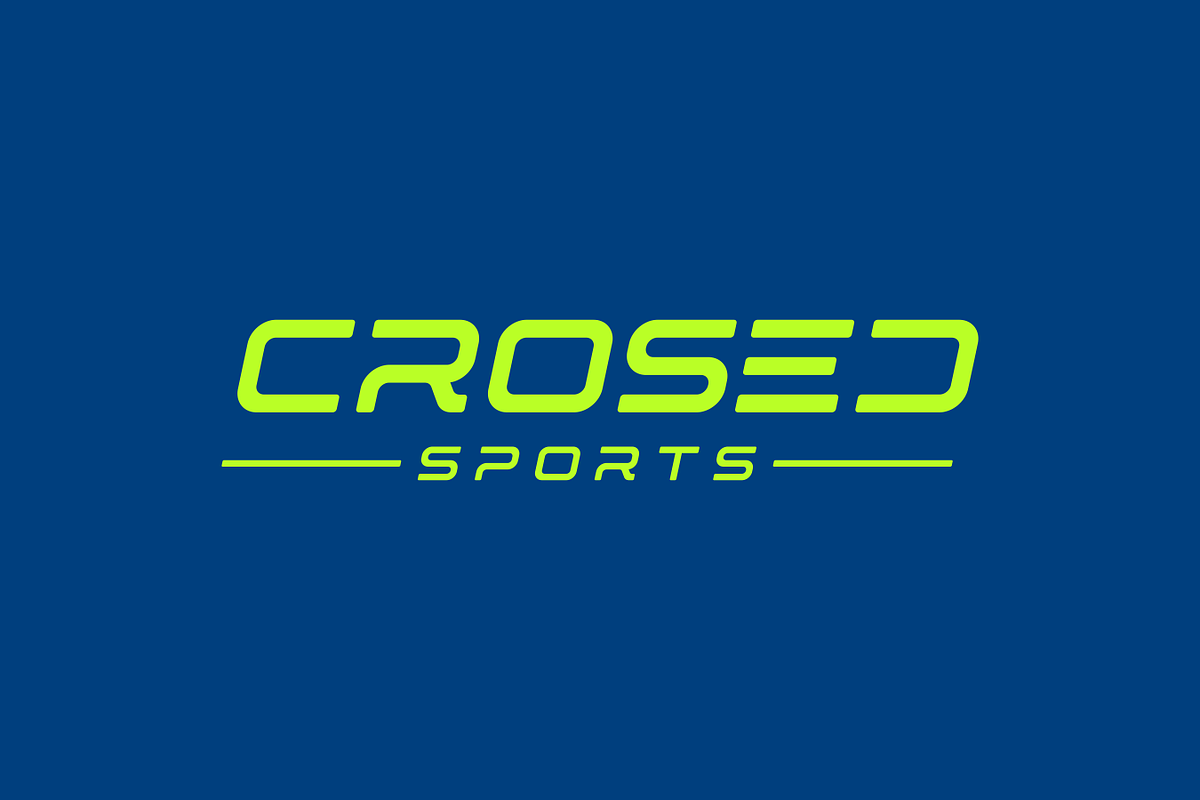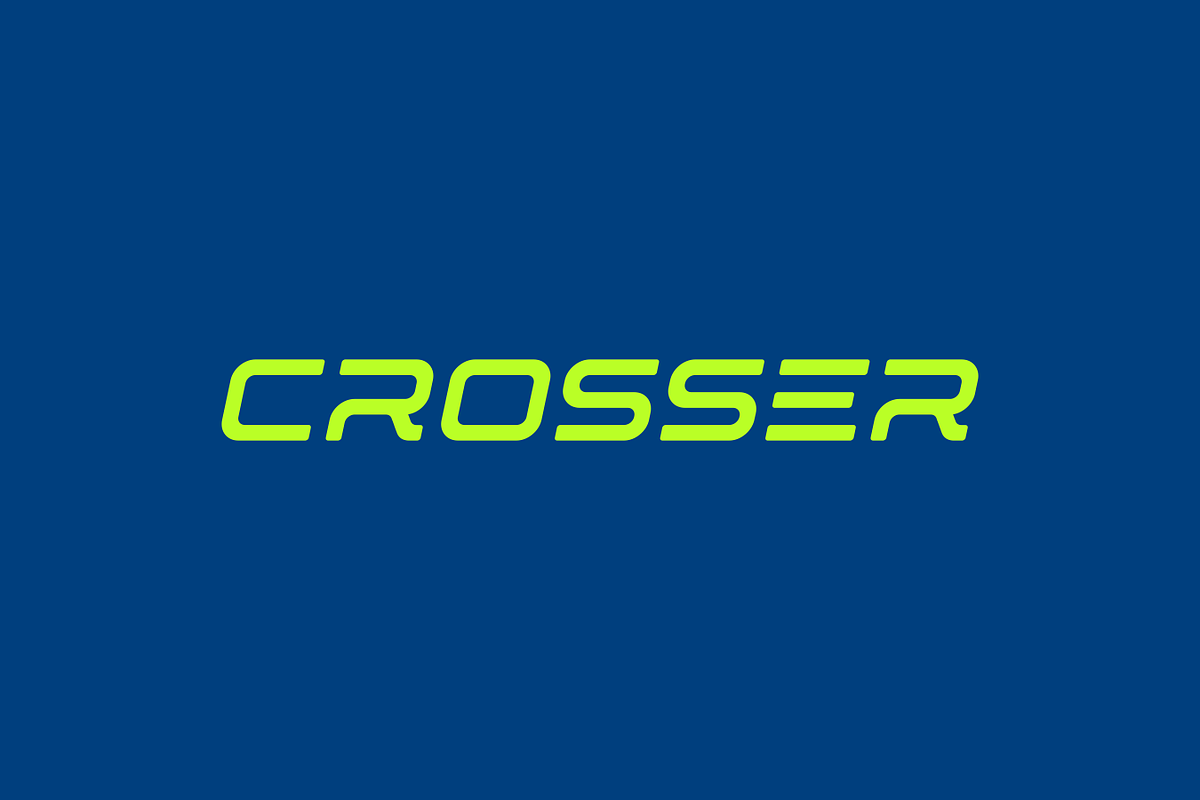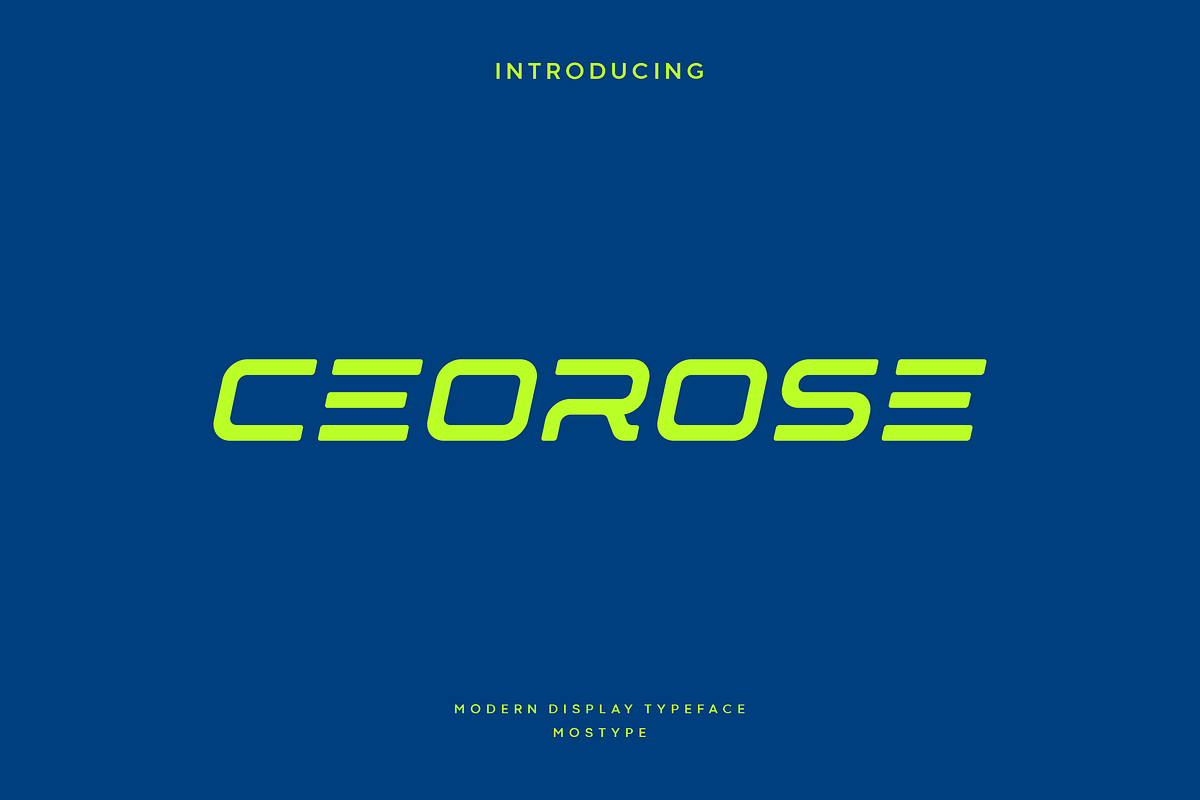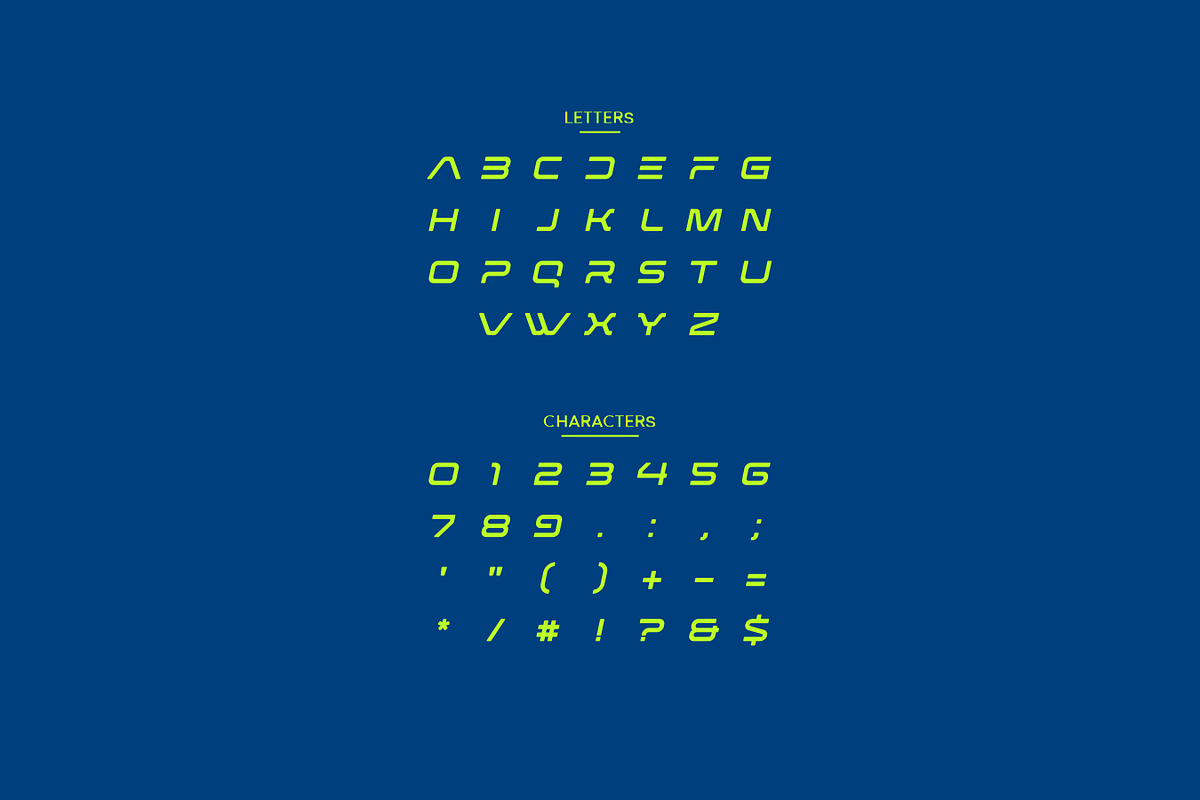
Ceorose - Modern Display Typeface
Ceorose that feels beautiful classy, elegant, and modern. This font is perfectly suited for a wide variety of projects, such as signature, stationery, logo, wedding, typography quotes, magazine or book covers, website headers, clothing, branding, packaging design, and more. Also, fashion-related branding or editorial design displays both masculine and feminine qualities.